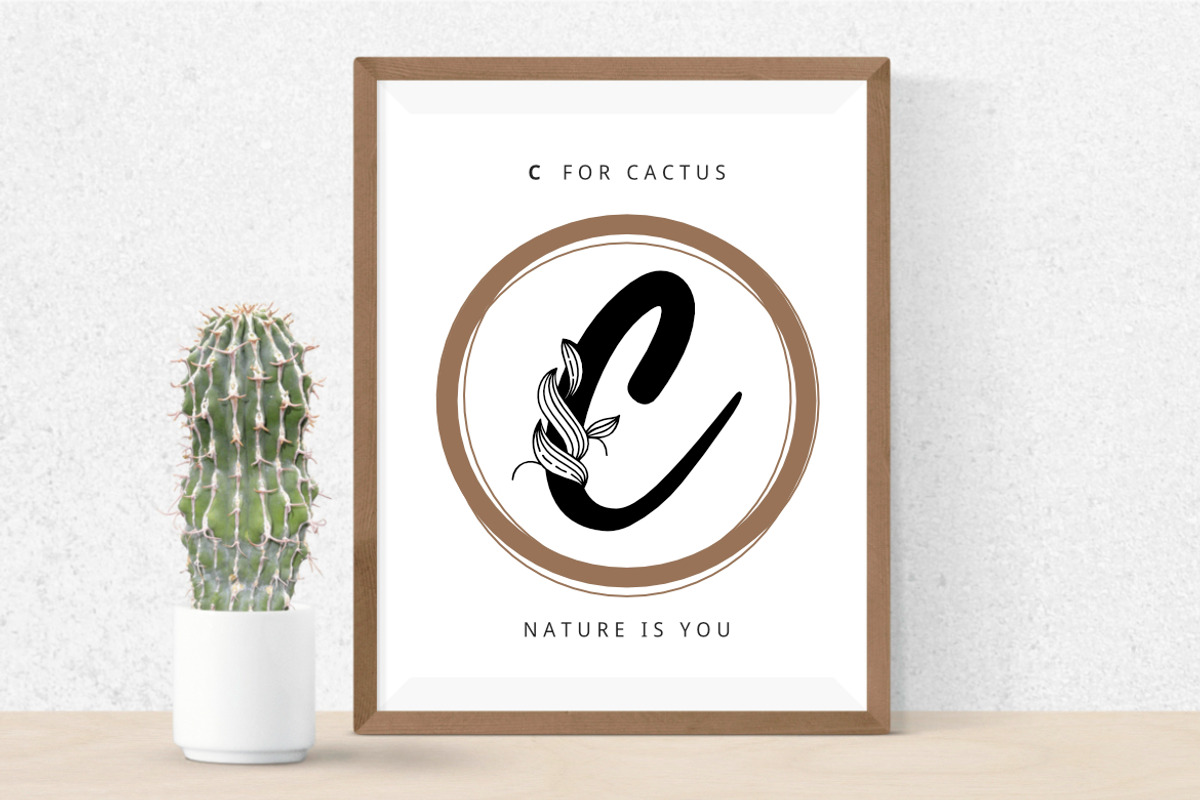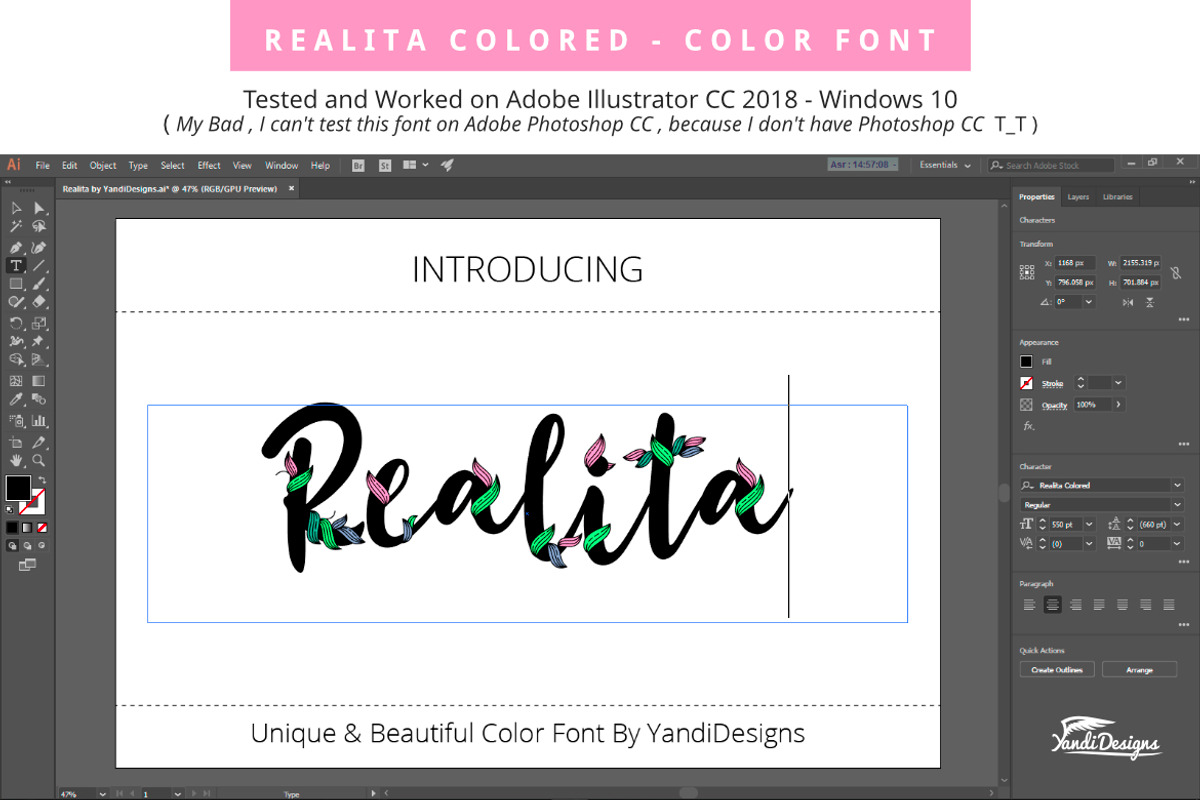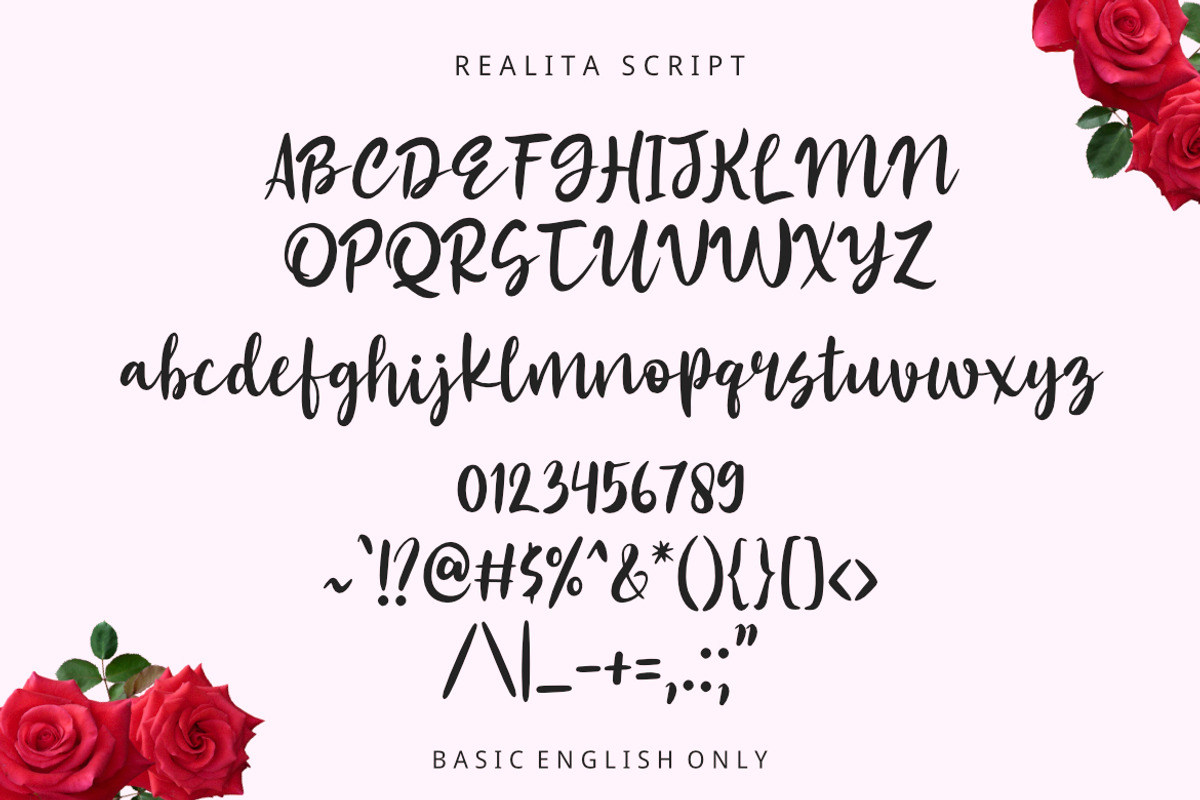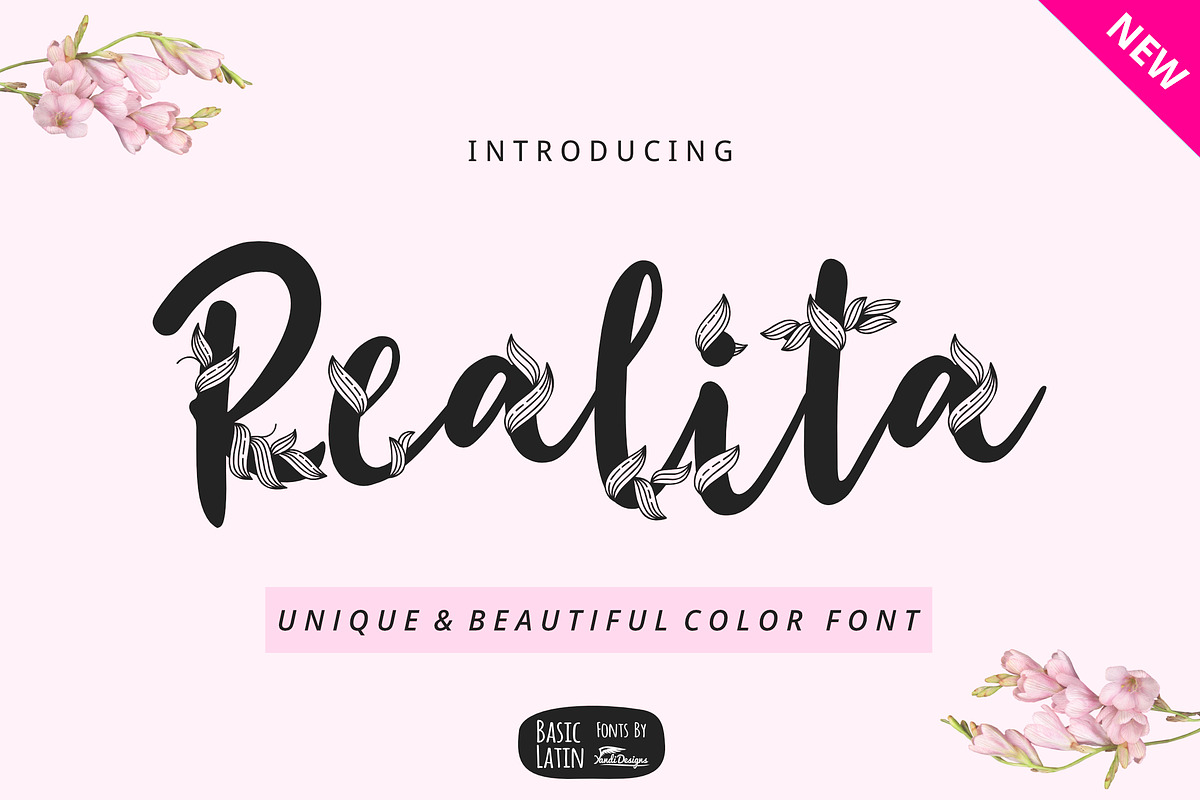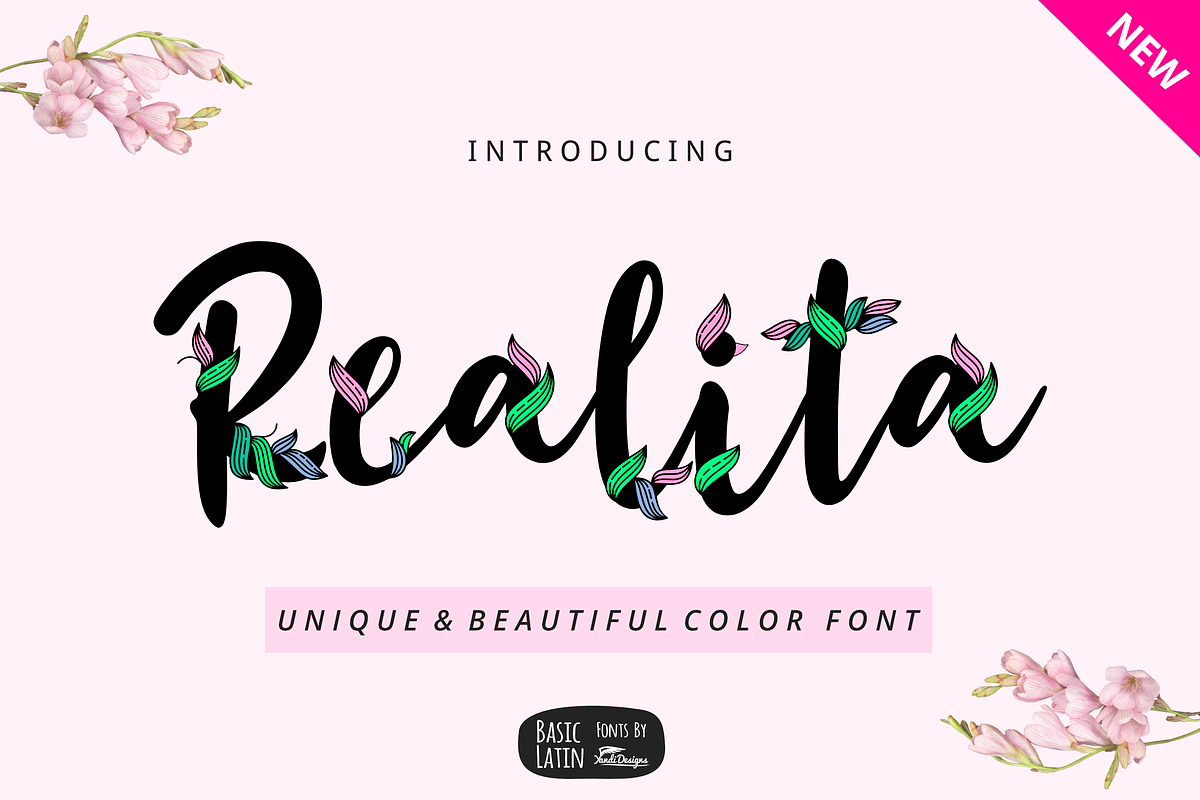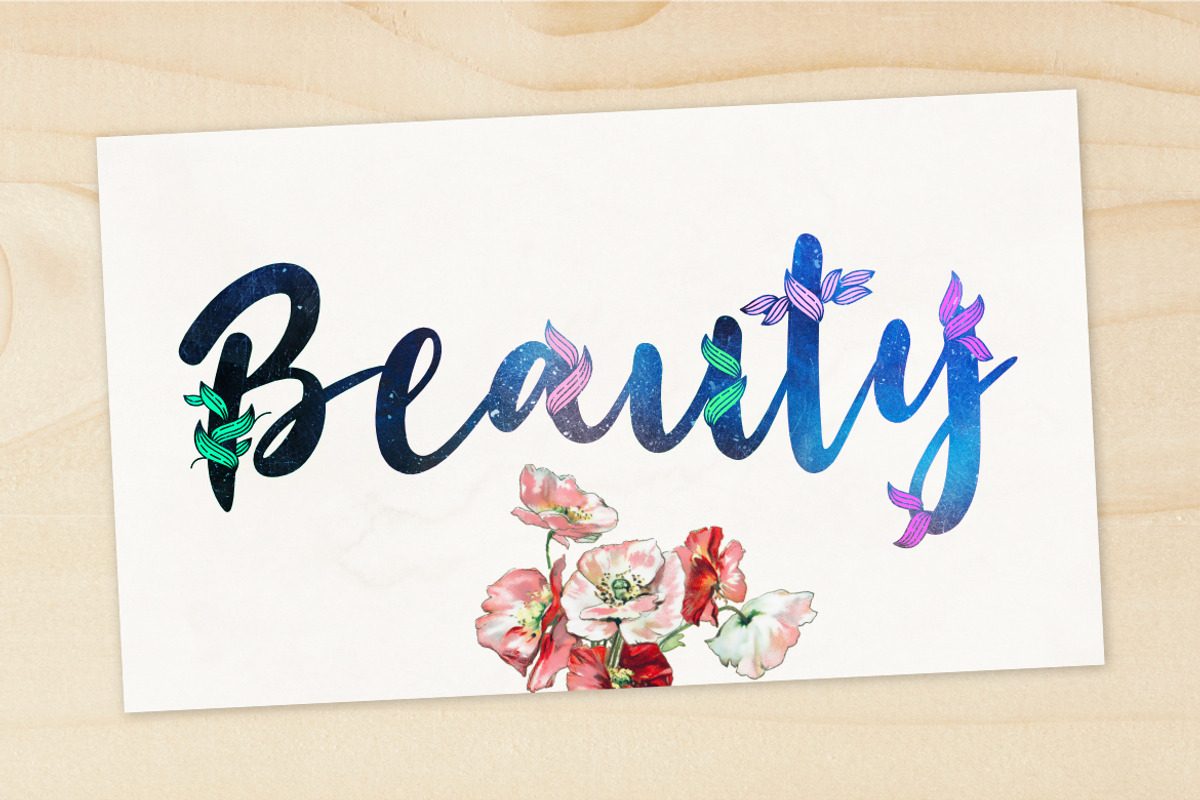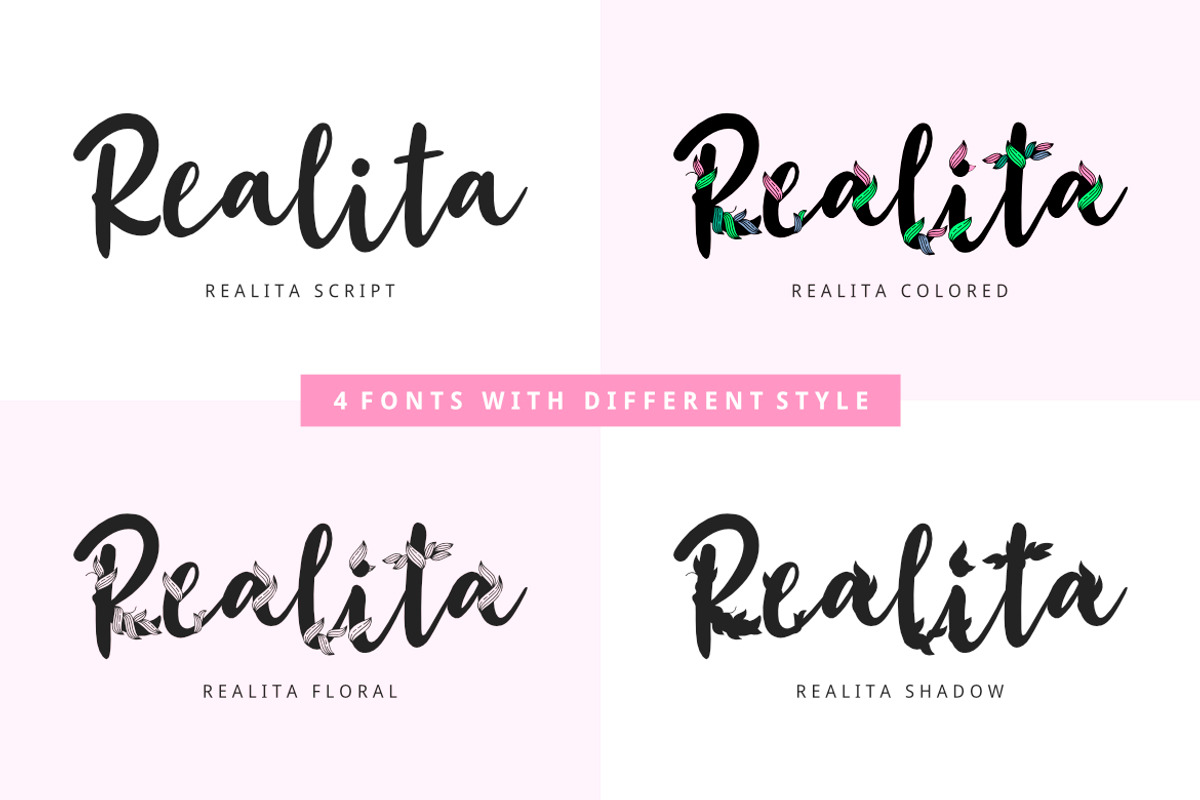
Realita Color Font
Unique and beautiful font , suitable for many project, monogram, wedding , quotes, logo , doodle, heading , title etc.
Why Realita Color Font is worth a look
Realita Color Font by YandiDesigns fits naturally into Branding, posters, packaging, typography.